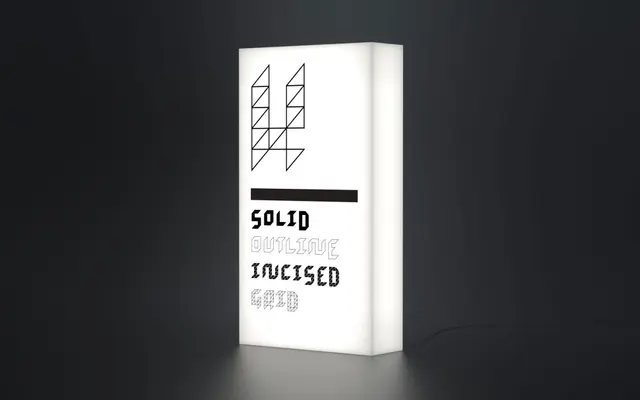
An all-caps modular display typeface by Archie Heaslip, built entirely from a single isosceles right triangle and available in four structurally derived styles.
Constructed from a single isosceles right triangle on a grid, the letterforms reference both broad-nibbed calligraphy and 8-bit video game aesthetics. Letters vary in height to create a syncopated rhythm, with alternates giving the user control over that cadence. The four styles — Solid, Outline, Incised and Grid — each emerge directly from the underlying grid structure, and the typeface originated as a bespoke design for a checkers-style board game set in mountainous terrain.
An all-caps modular typeface constructed entirely from a single isosceles right triangle on a grid, placing it firmly in the display category with a geometric-modular subcategory.